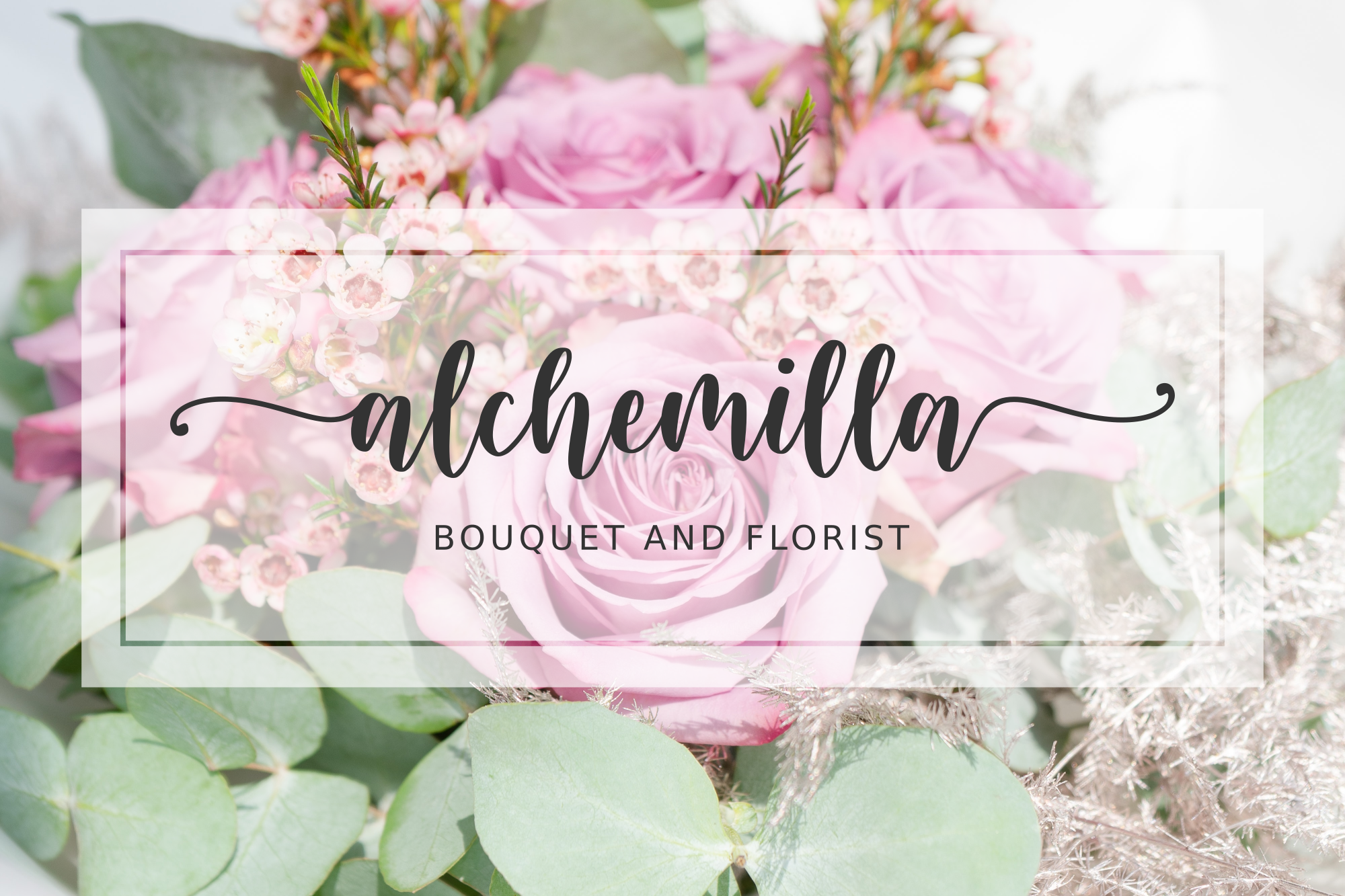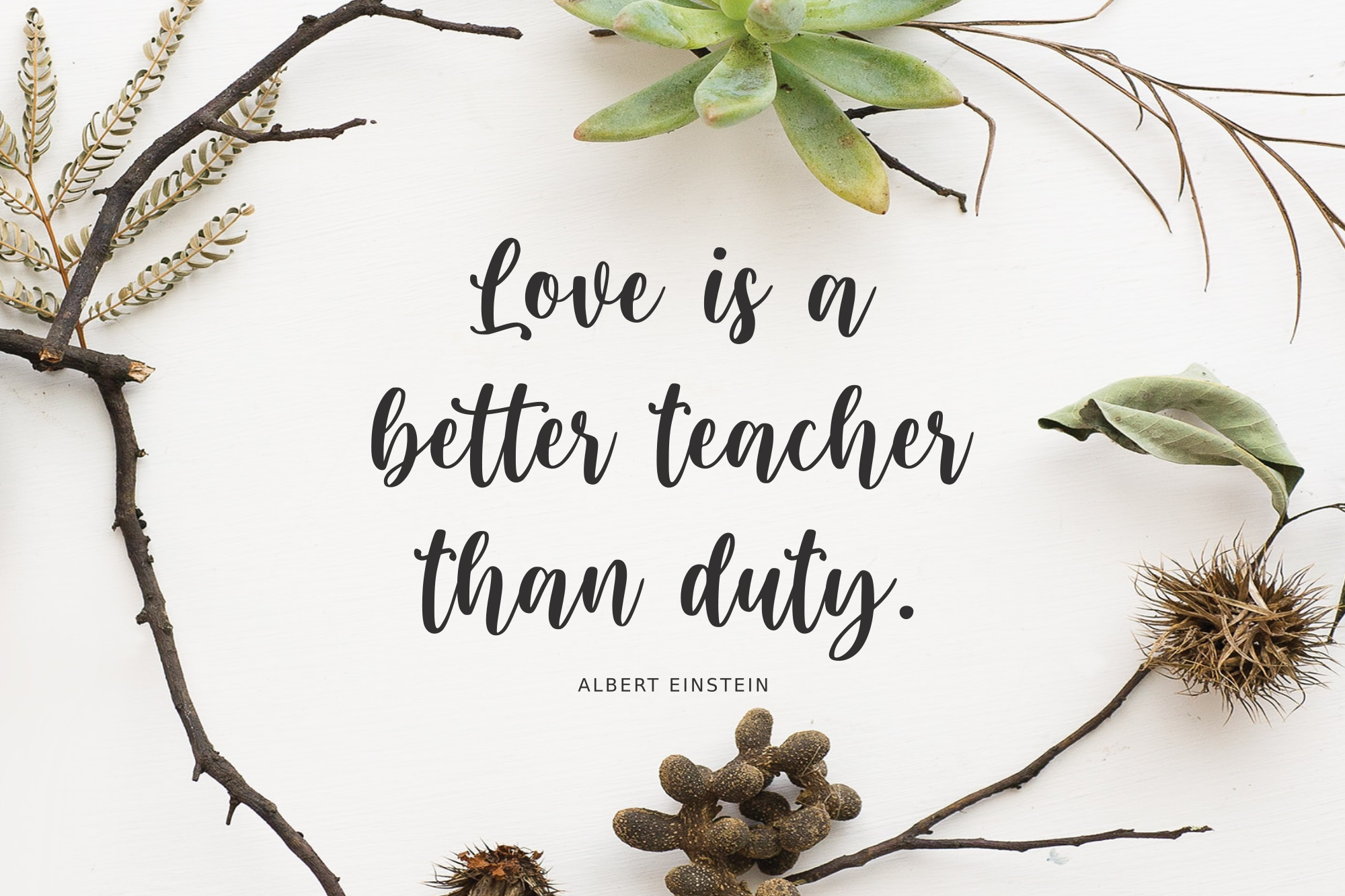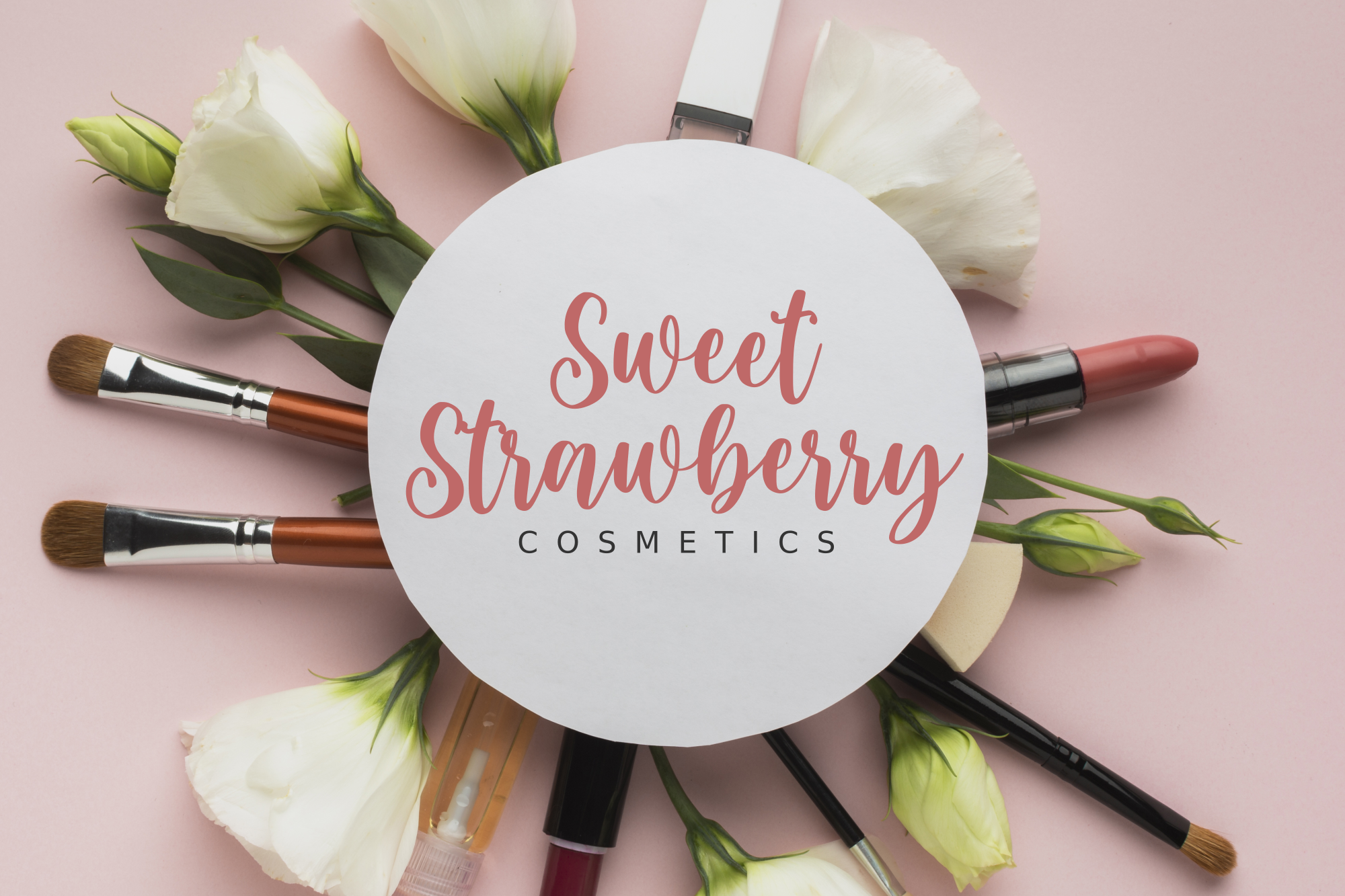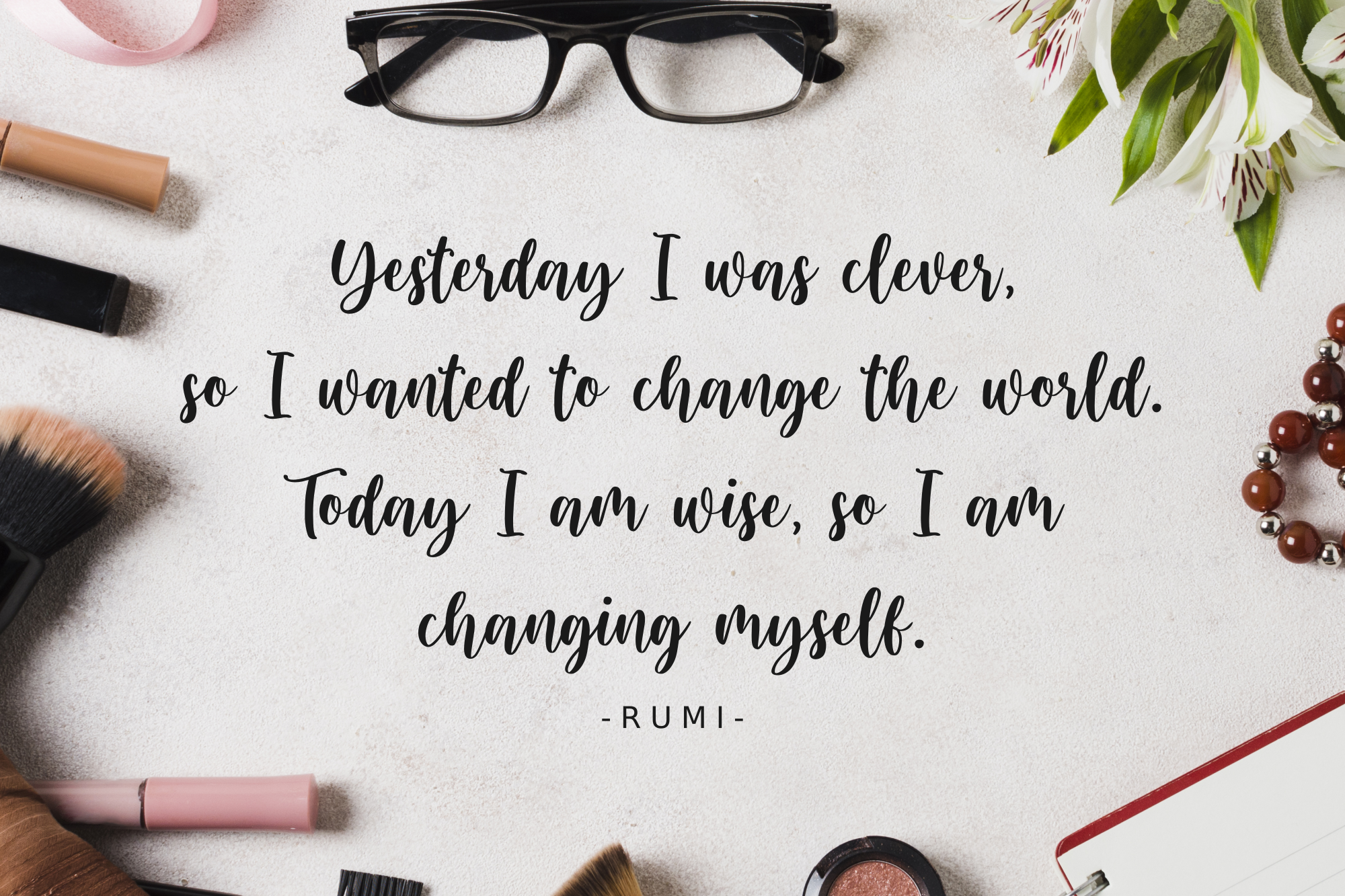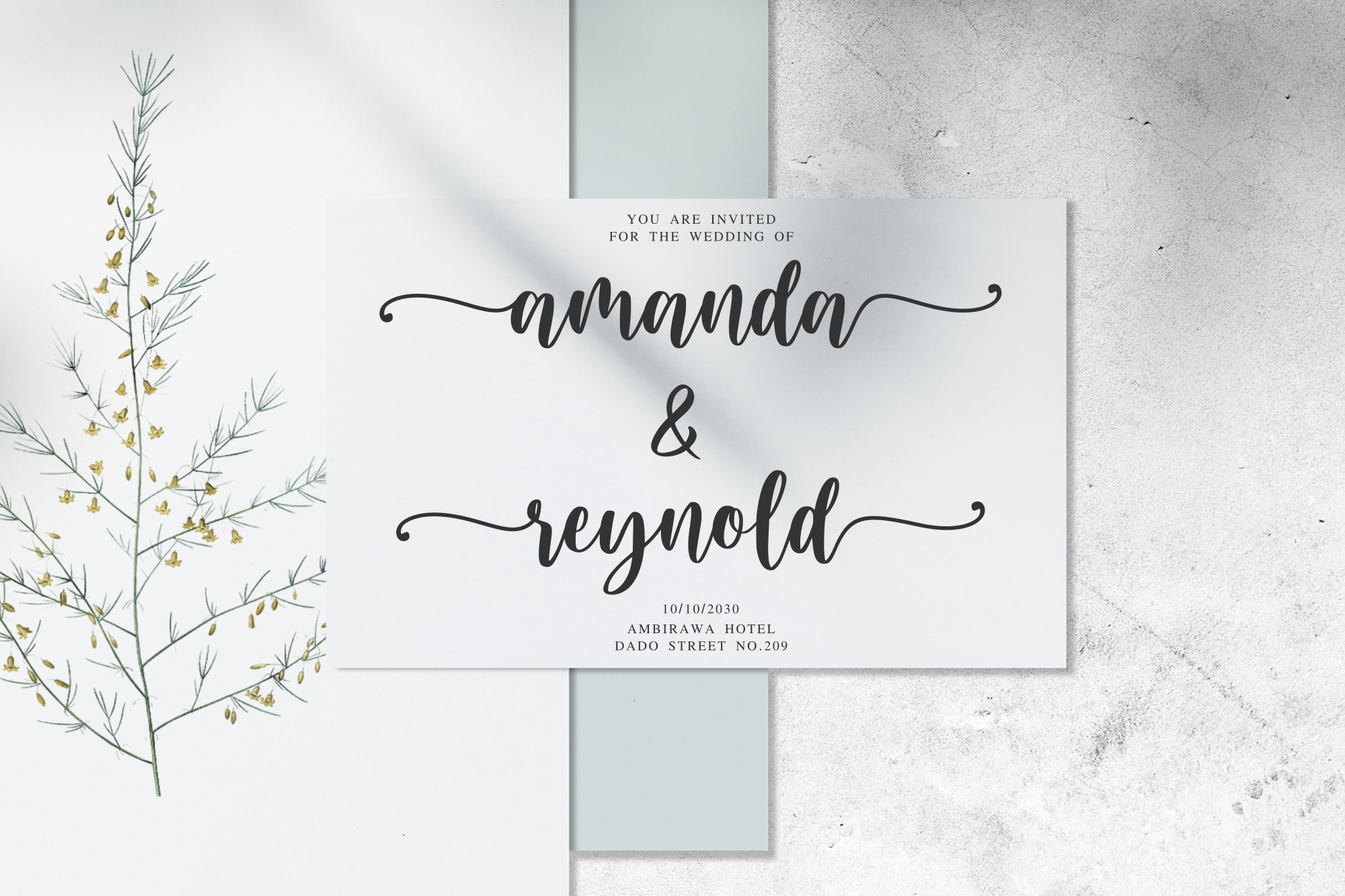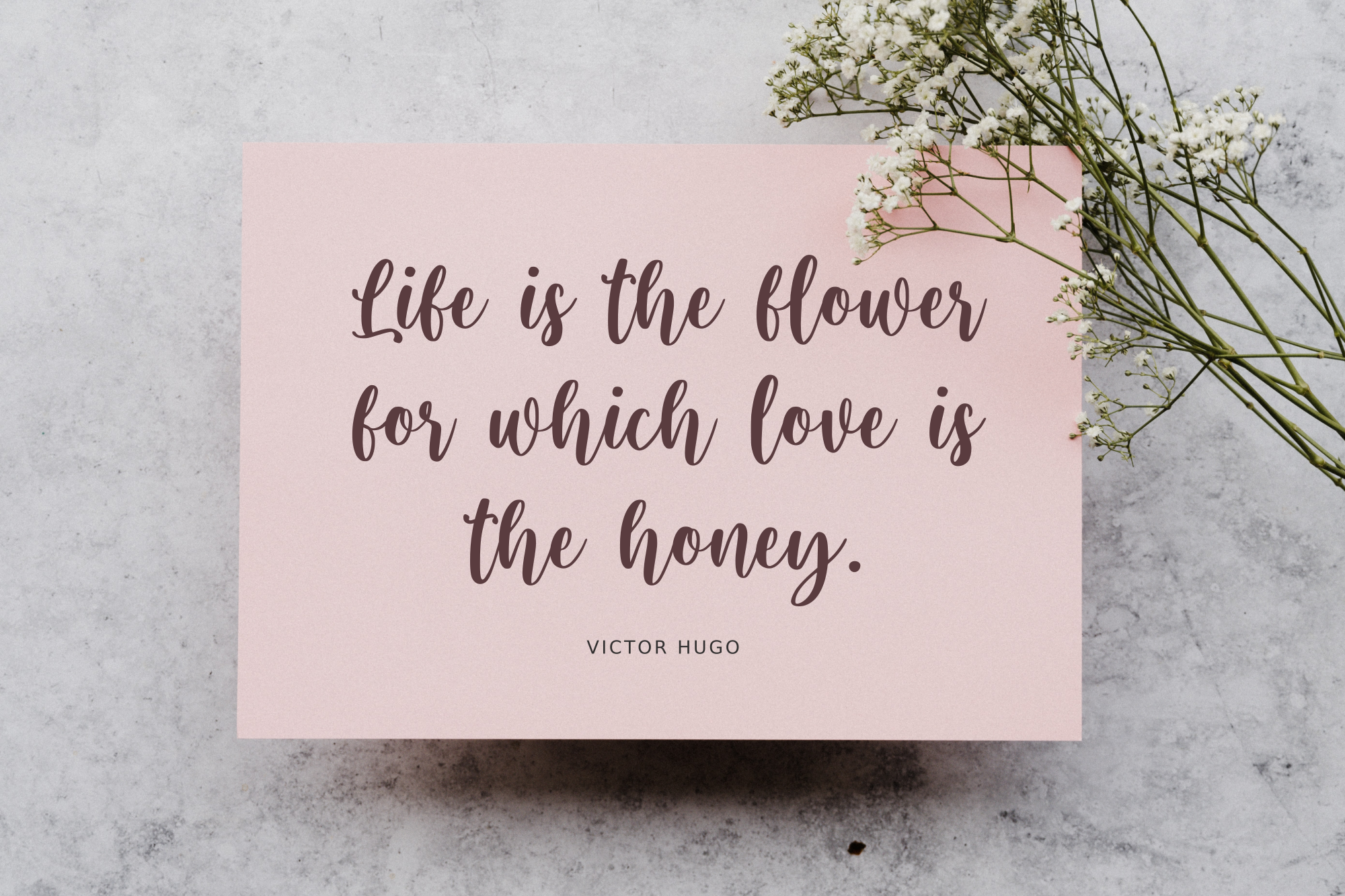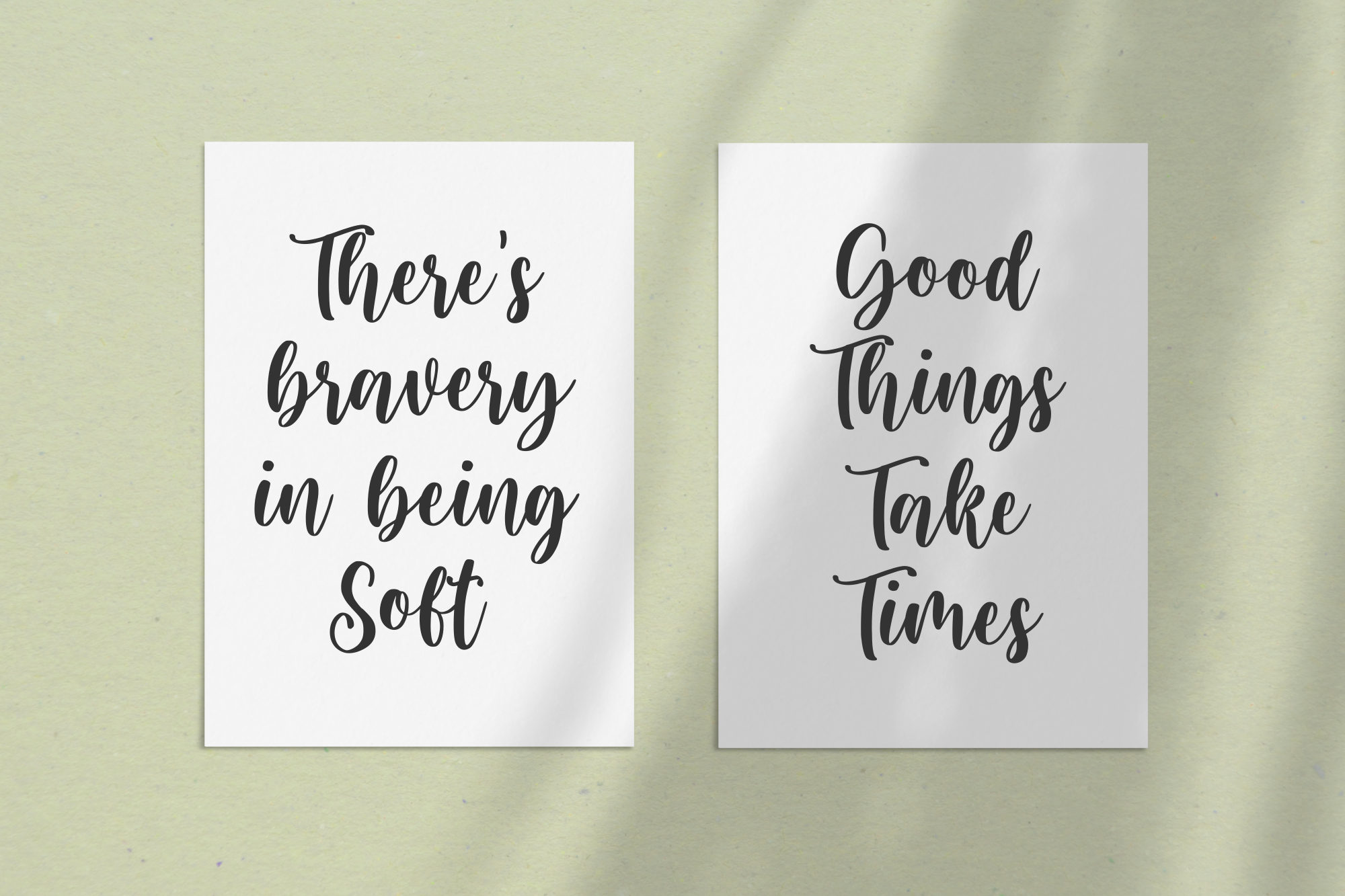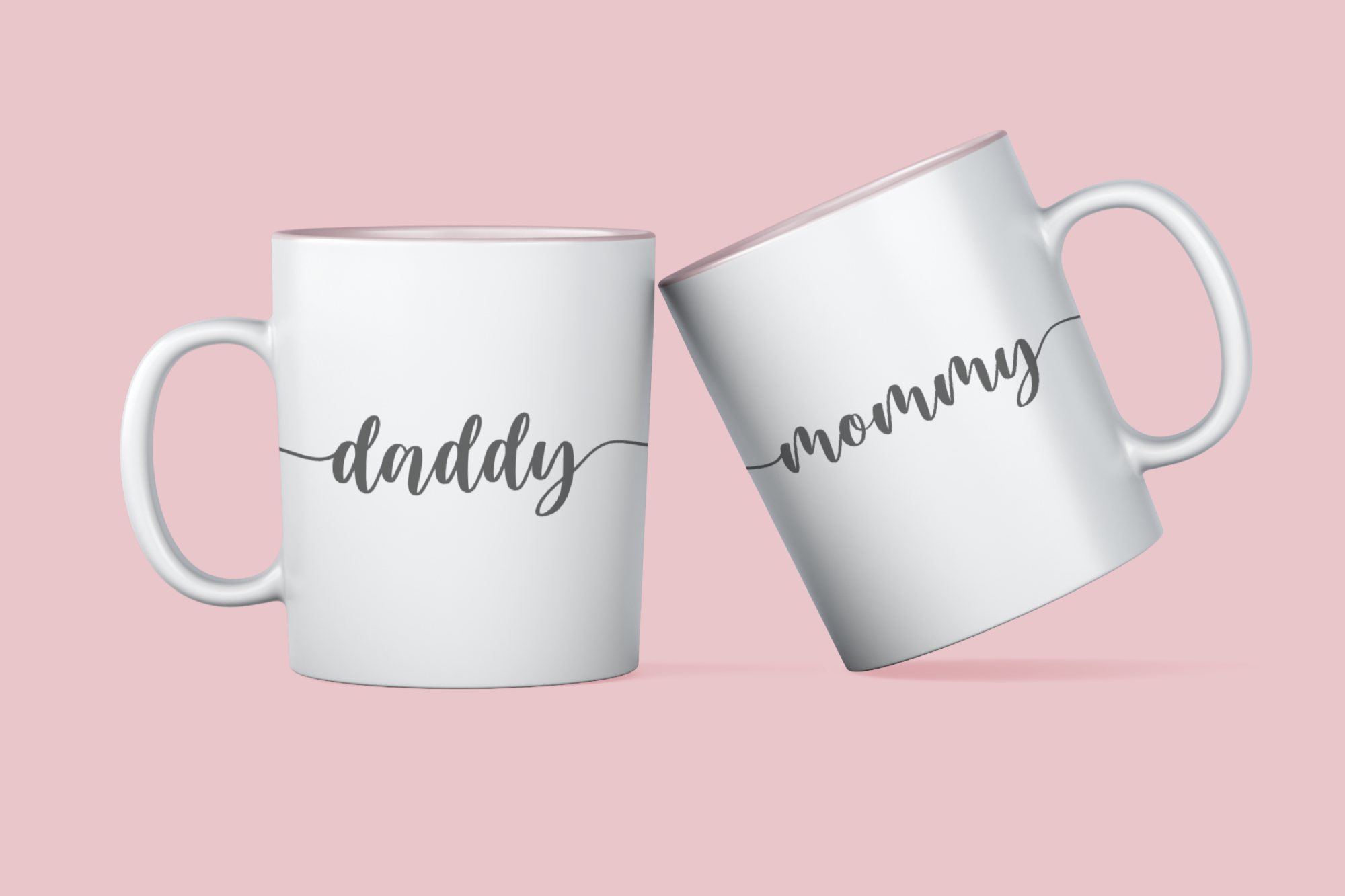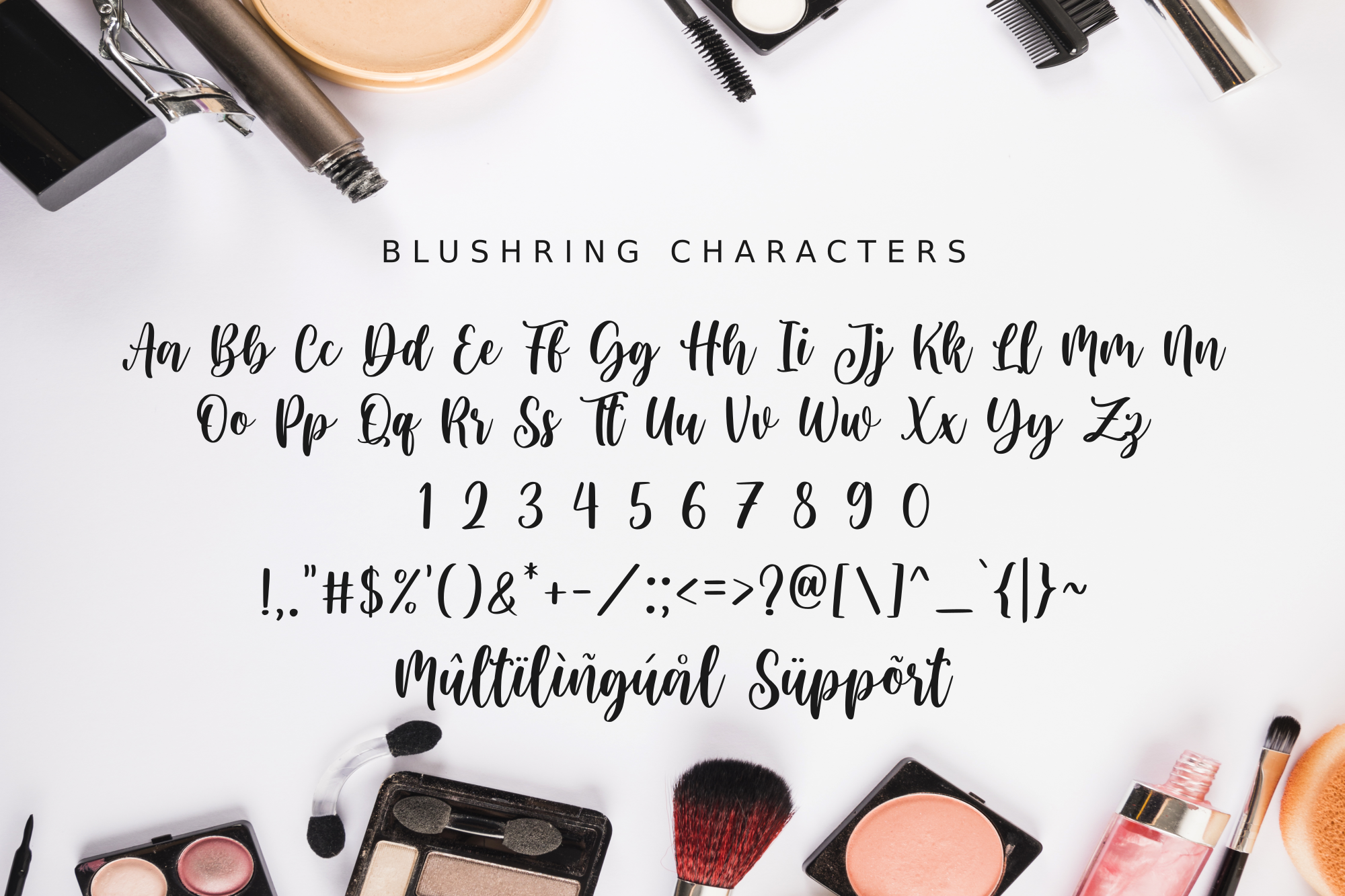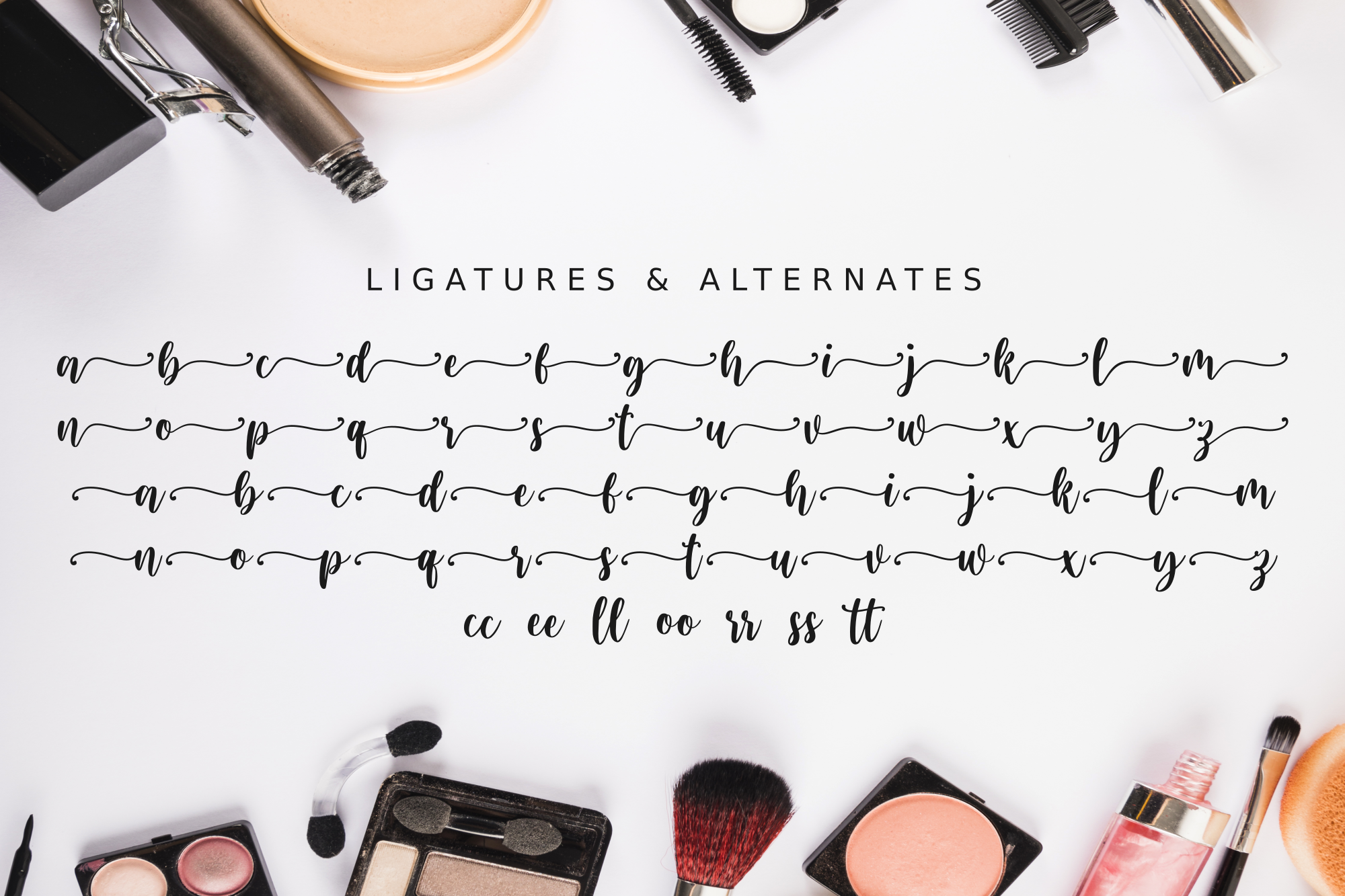
Blushring - Modern Calligraphy Font
Blushring is a modern and unique handwritten font with a beautiful elegant style. It includes many alternates to help your typography feel more refined and custom.
Blushring is a modern and unique handwritten font with a beautiful elegant style. It includes many alternates to help your typography feel more refined and custom. It works well for logos, wedding designs, branding, product packaging, social media posts, quotes, and more.
Logos, wedding designs, branding, product packaging, social media posts, quotes,